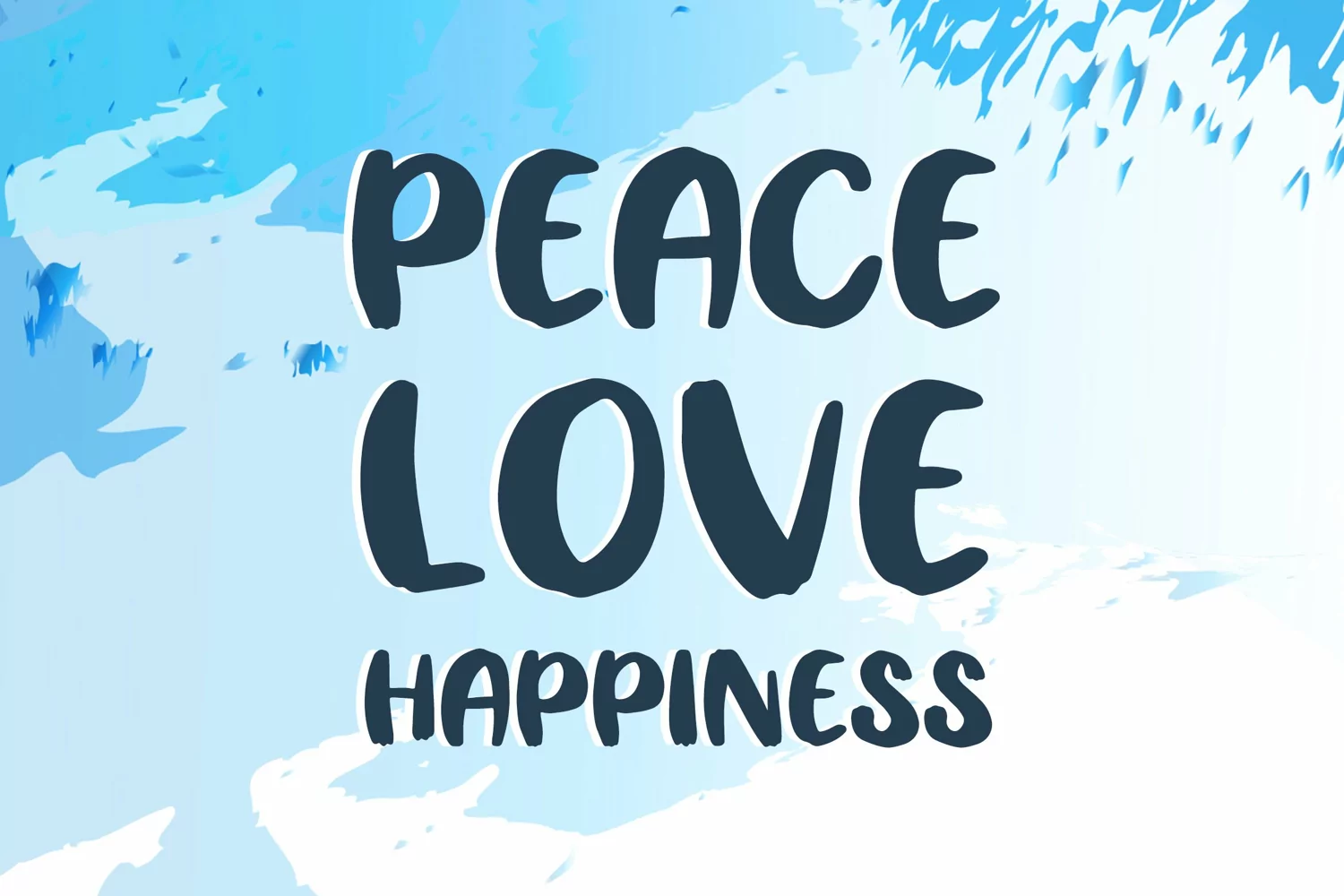
Homan is a cool and unique display font. This font is ideal for writing web designs, business cards, or pretty much anything else that requires a unique touch.
Homan